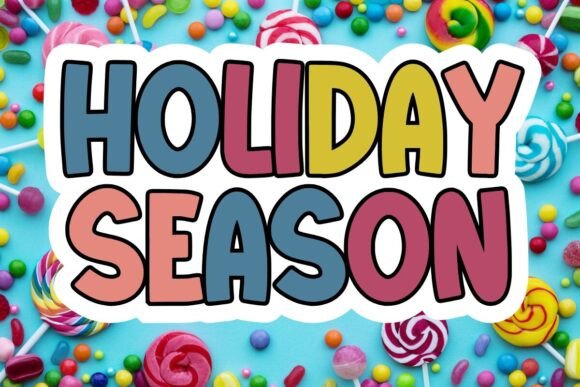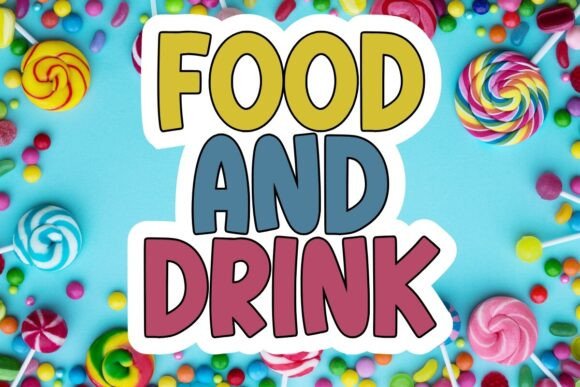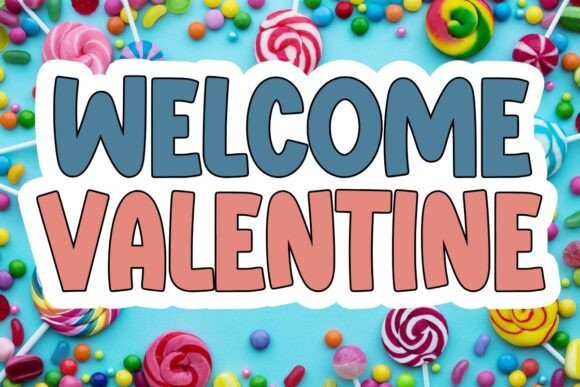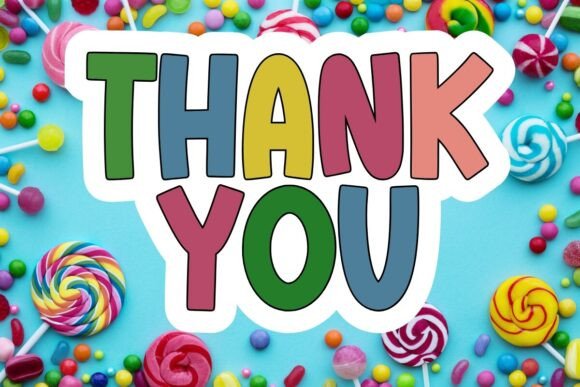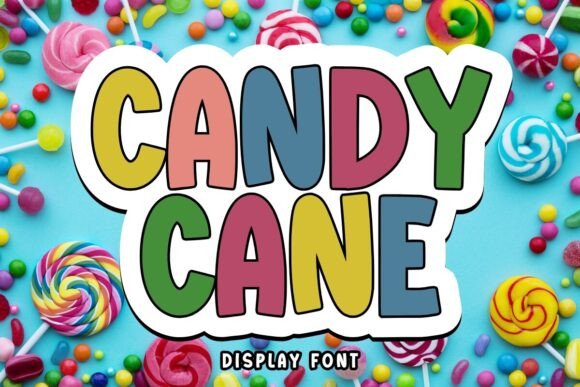
Candy Cane Font: A Cute and Bold Display Font to Elevate Your Designs
Are you looking for a font that can add a touch of sweetness and festivity to your designs? Look no further than the Candy Cane font! This cute and bold display font is perfect for designers and crafters who want to bring a unique and beautiful style to their projects. In this article, we’ll explore the features and benefits of the Candy Cane font, and show you how to incorporate it into your favorite designs.
What is Candy Cane Font?
Candy Cane is a bold and playful display font that is inspired by the classic holiday treat. Its unique and eye-catching design makes it perfect for adding a touch of festivity to any project. The font features bold lines, curvaceous shapes, and a dash of whimsy, making it a standout addition to any design.
Key Features of Candy Cane Font
- Cute and Playful Design: The Candy Cane font features a cute and playful design that is sure to capture the attention of your audience.
- Bold and Easy to Read: The font is bold and easy to read, making it perfect for headlines, titles, and other design elements.
- Unique and Festive Style: The Candy Cane font has a unique and festive style that is perfect for holiday-themed designs, as well as other projects that require a touch of whimsy.
- High-Quality Design: The font is designed with high-quality craftsmanship, ensuring that it looks great in any design.
Benefits of Using Candy Cane Font
There are many benefits to using the Candy Cane font in your designs. Here are just a few:
- Adds a Touch of Festivity: The Candy Cane font adds a touch of festivity and whimsy to any design, making it perfect for holiday-themed projects.
- Standout Design: The font’s unique and bold design makes it a standout addition to any project, ensuring that your design gets noticed.
- Easy to Use: The Candy Cane font is easy to use and can be incorporated into a variety of design projects, from digital graphics to print materials.
- Versatile: The font is versatile and can be used in a variety of design contexts, from formal to informal.
How to Use Candy Cane Font in Your Designs
Using the Candy Cane font in your designs is easy! Here are a few tips to get you started:
- Pair with Other Fonts: Pair the Candy Cane font with other fonts to create a unique and interesting design.
- Use for Headlines and Titles: Use the Candy Cane font for headlines and titles to add a touch of festivity and whimsy to your design.
- Add to Digital Graphics: Add the Candy Cane font to your digital graphics, such as social media posts and blog headers, to make them more engaging and eye-catching.
- Use for Print Materials: Use the Candy Cane font for print materials, such as flyers and brochures, to add a touch of personality and whimsy.
Design Inspiration with Candy Cane Font
The Candy Cane font is a versatile design element that can be used in a variety of design contexts. Here are a few design inspiration ideas to get you started:
- Holiday-themed Designs: Use the Candy Cane font to create holiday-themed designs, such as Christmas cards and decorations.
- Festive Packaging: Use the Candy Cane font to create festive packaging for your products, such as holiday-themed labels and stickers.
- Social Media Graphics: Use the Candy Cane font to create social media graphics, such as Facebook and Twitter headers, that are festive and eye-catching.
- Wedding and Party Decorations: Use the Candy Cane font to create wedding and party decorations, such as invitations and banners, that are festive and fun.
| Author | Minimalist Eyes |
The Candy Cane font is a cute and bold display font that is perfect for designers and crafters who want to add a touch of festivity and whimsy to their projects. With its unique and eye-catching design, bold lines, and curvaceous shapes, this font is sure to bring your designs to life. Whether you’re creating holiday-themed designs, festive packaging, or social media graphics, the Candy Cane font is a versatile design element that is sure to inspire your creativity.